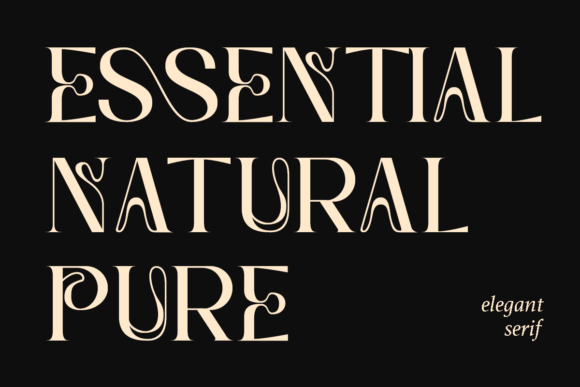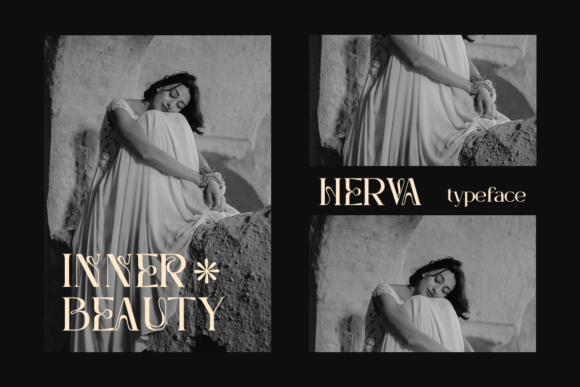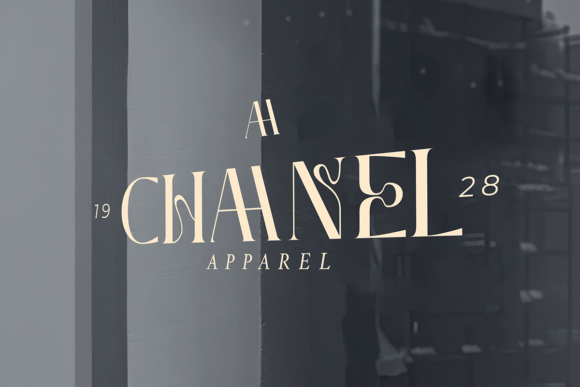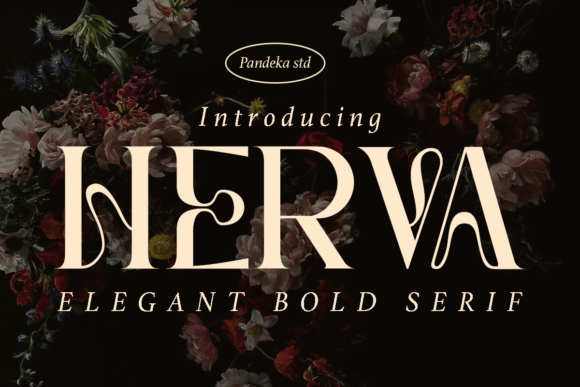
Introduction to Herva Font
Herva is a modern, elegant, and classy serif typeface, best used as a display for headings, logos, branding, magazines, product packaging, and invitations.
Herva comes with clean lines and smooth curves that give any project an extra touch of class Herva was built with OpenType features and includes ligatures, alternates, numbers, punctuation, and supports multiple languages.